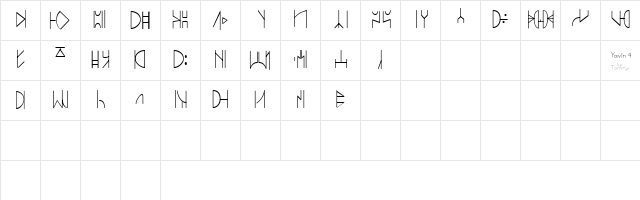
SWyavin4 Normal
Design Context for SWyavin4 Typeface
SWyavin4 takes a measured approach to typography — its balanced proportions and neutral character make it a reliable workhorse for both digital and print work.